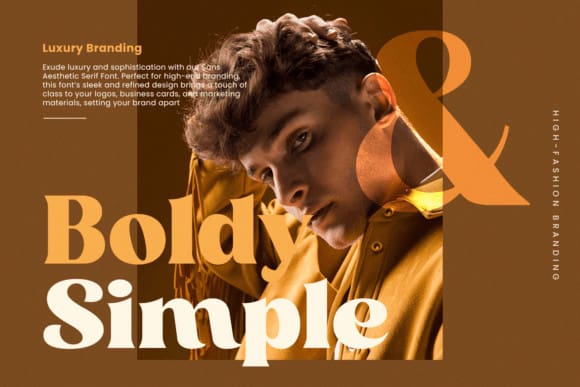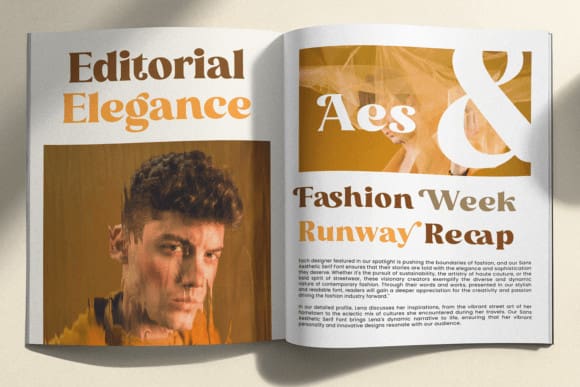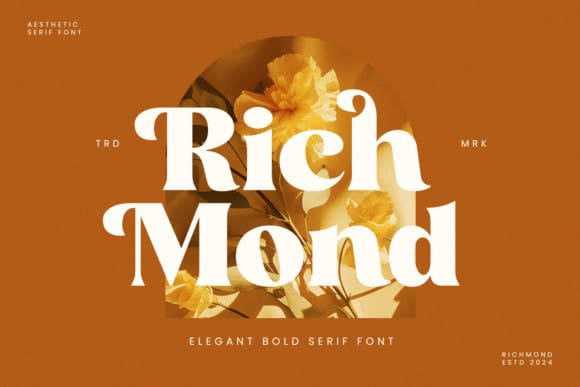
Richmond Font
Richmond Font, an elegant bold serif font designed to elevate your branding, advertising, posters, magazines, headlines, and more. This sophisticated typeface boasts a refined touch with soft nodes, giving each character a strong yet graceful presence. Ideal for making a powerful statement, “Richmond” combines classic elegance with modern boldness, ensuring your designs stand out with authority and style.